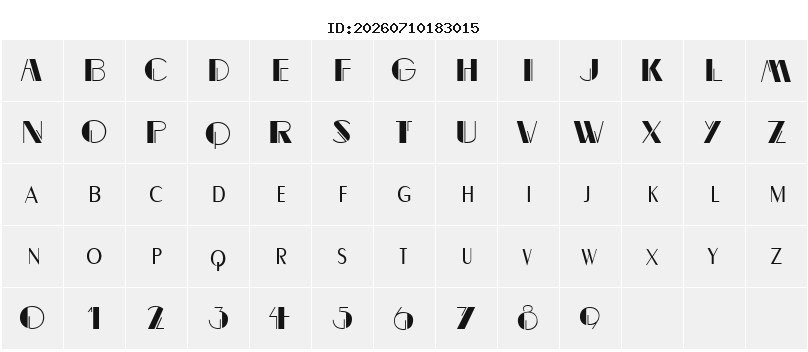
Gaslight Preview
About Gaslight.ttf
Gaslight.ttf is a modern, elegant sans-serif font designed for ultimate readability and visual harmony. Perfect for branding, headlines, web design, and print materials.